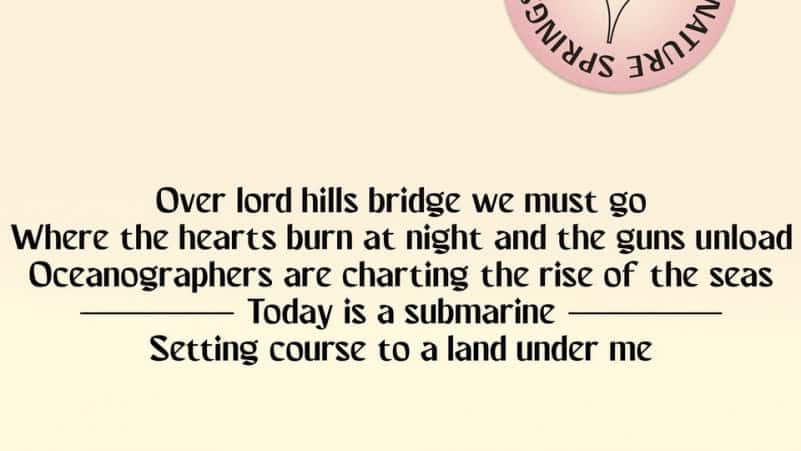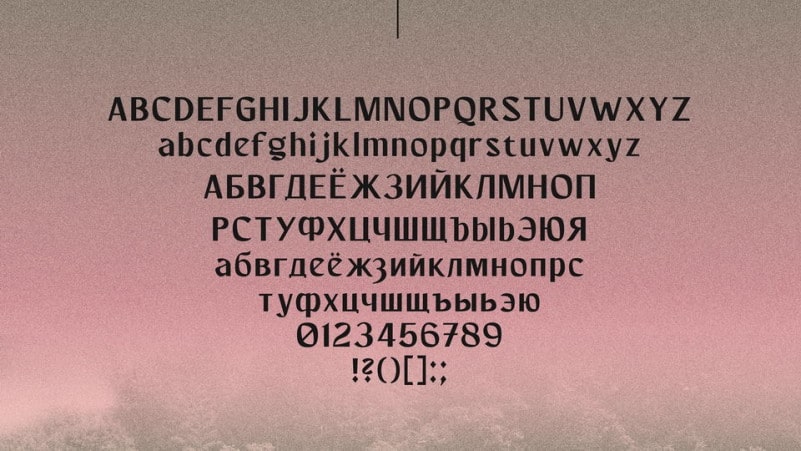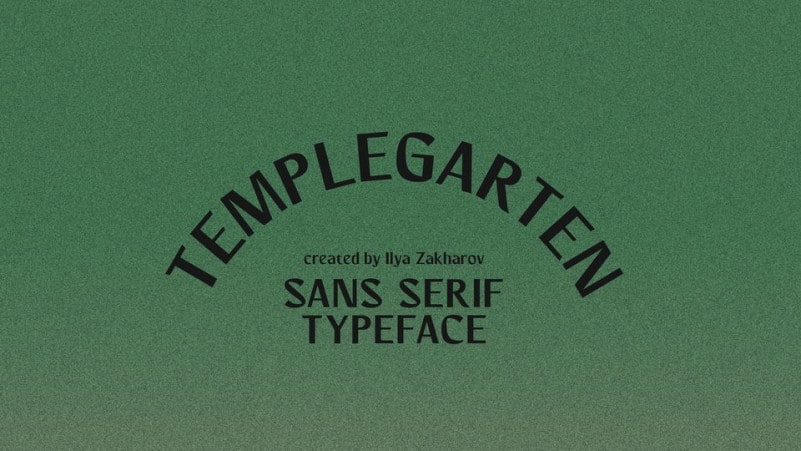
Templegarten Sans Serif Font is uppercase and lowercas. Numeric and international font. a free sans serif typeface with a gothic mood. Made from font designer named Ilya Zakharov. The font works great both for text and display use. Templegarten very suitable for Game App, poster, for logo, music cover, clothing, and many many cool design projects.
Templegarten